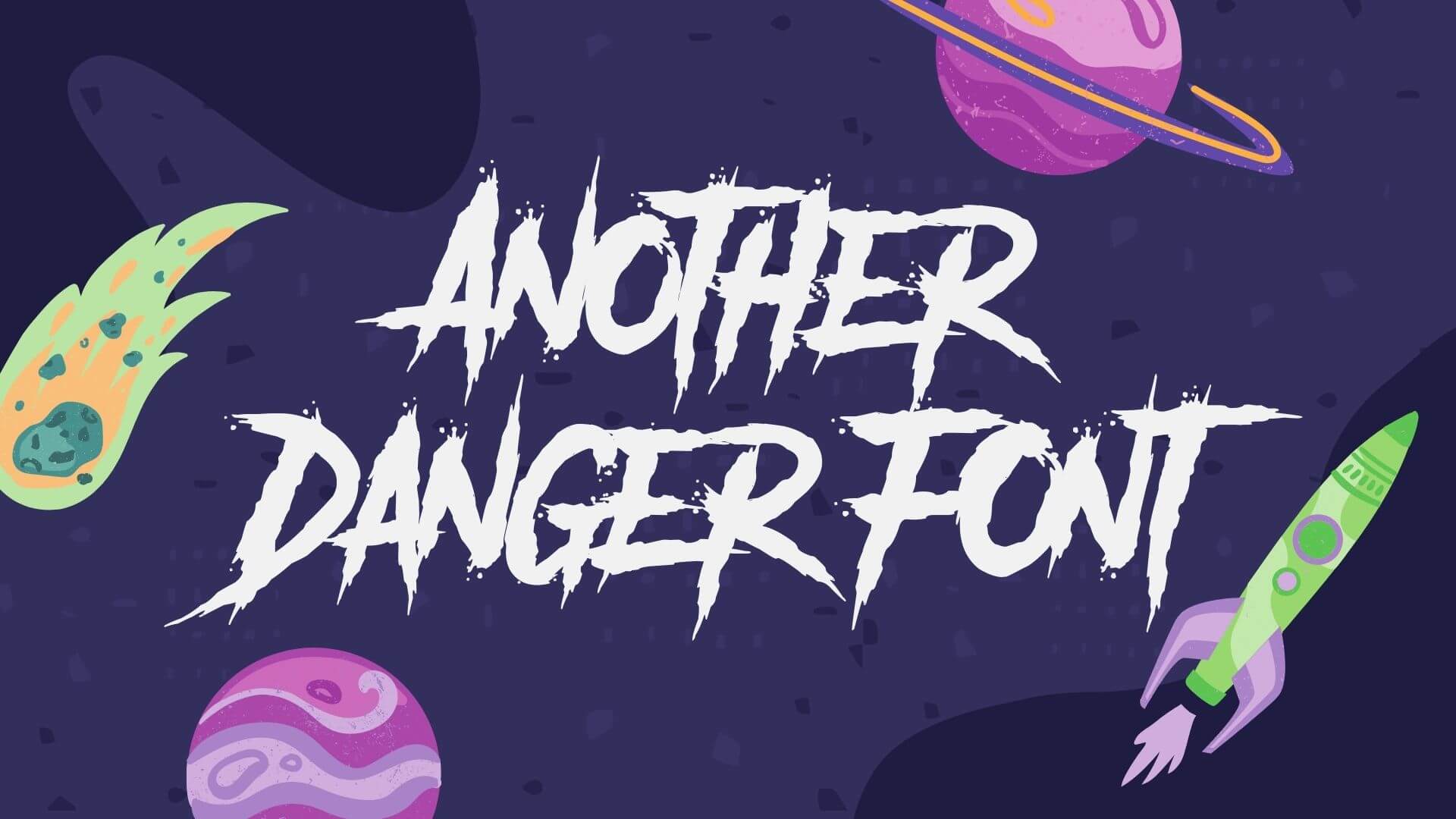
Another Danger Font Family is a great typeface that will be very useful to you at many places. It contains unique glyphs and having a sketchy texture which produced one of the best graphic designs works. You can use it for making posters, banners, youtube thumbnails, Facebook posters, Instagram posts, and other lots of great projects for free. Also, you can use it as a pairing with the combination of Sweet Ink font.
There is a wide range of designs that can easily build with this font, one way is to use it as pairing by combining amber whiskey font with the font for getting more extra ligatures, glyphs, and features. This will be your loved typeface after getting awesome results once you will use it in your current working project.